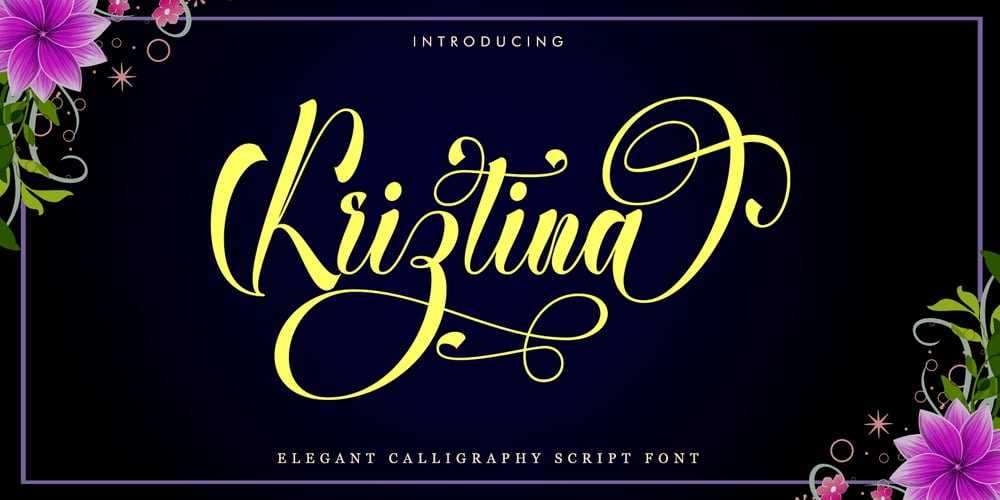
Kriztina Font Family was designed by Afri Giani and published by Gian Studio. Kriztina contains 1 styles and family package options. Kriztina is a modern calligraphy font with the current handwriting style, this font is perfect for branding, wedding invites, magazines, mugs, business cards, quotes, posters, and more, you can try first if you want to buy this font.Kriztina is equipped with 597 glyphs. and by having many of these glyphs there will be able to choose the letters according to your likes, lots of variations and options for each letter, so you can customize on your design choices.to use a variety of flying machines, you need a program that supports OpenType features such as Adobe Photoshop Cs / Adobe Photoshop CC, Adobe Illustrator CS / Adobe Illustrator CC, Adobe Indesign and Corel Draw and many more programs that support OpenType.If you do not have a program that supports OpenType, you can access all the alternate glyphs using Font Book (Mac) or Character Map (Windows)Thanks and happy designing :-)Thank You for purchase!Designers: Afri GianiPublisher: Gian Studio